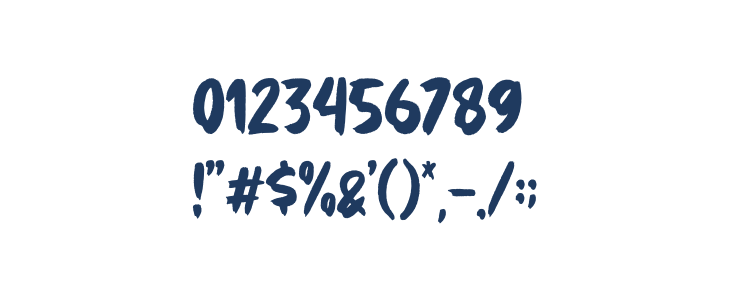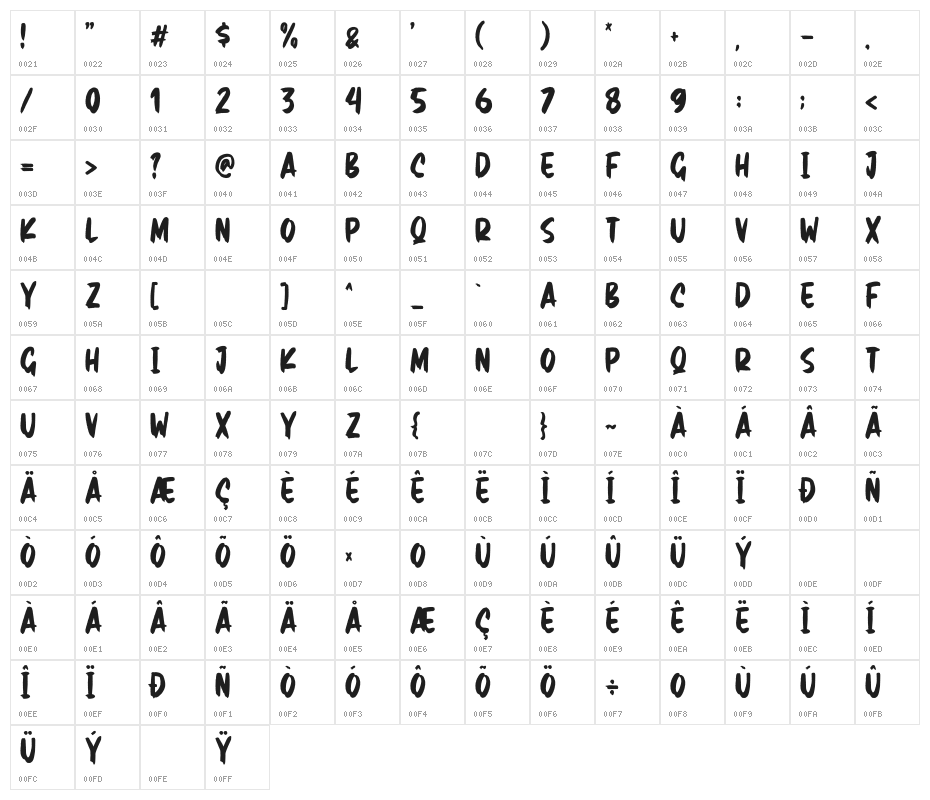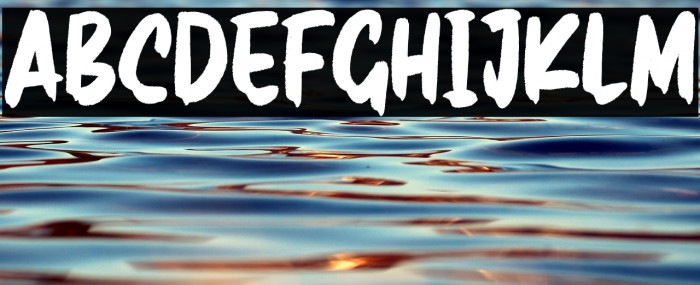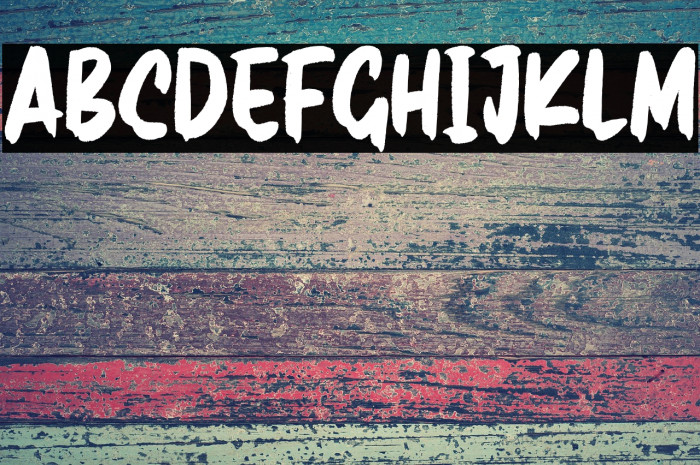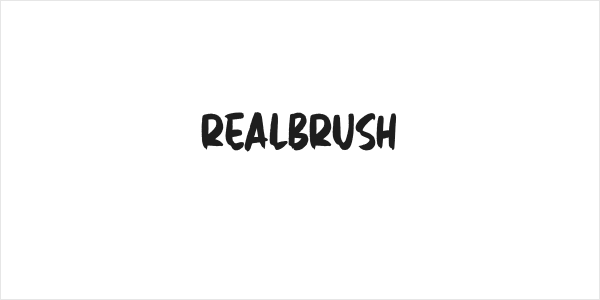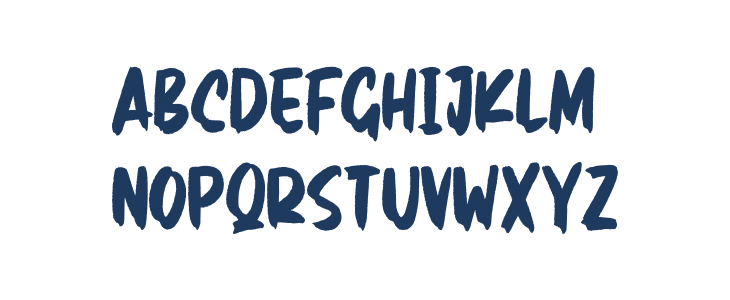
RealBrush Font
RealBrush Description
This font features a bold, brush-like style that conveys a sense of energy and dynamism. The strokes are thick and consistent, giving it a strong presence on the page. Each character is crafted with a hand-drawn appearance, adding a personal and artistic touch. The uppercase and lowercase letters maintain a cohesive look, with rounded edges and a slightly irregular baseline that enhances its casual and approachable feel. The numbers and special characters are equally expressive, making this font versatile for various creative applications.
| Proposed Projects | Ideal for projects such as posters, branding, packaging, and social media graphics where a bold and artistic statement is desired. |